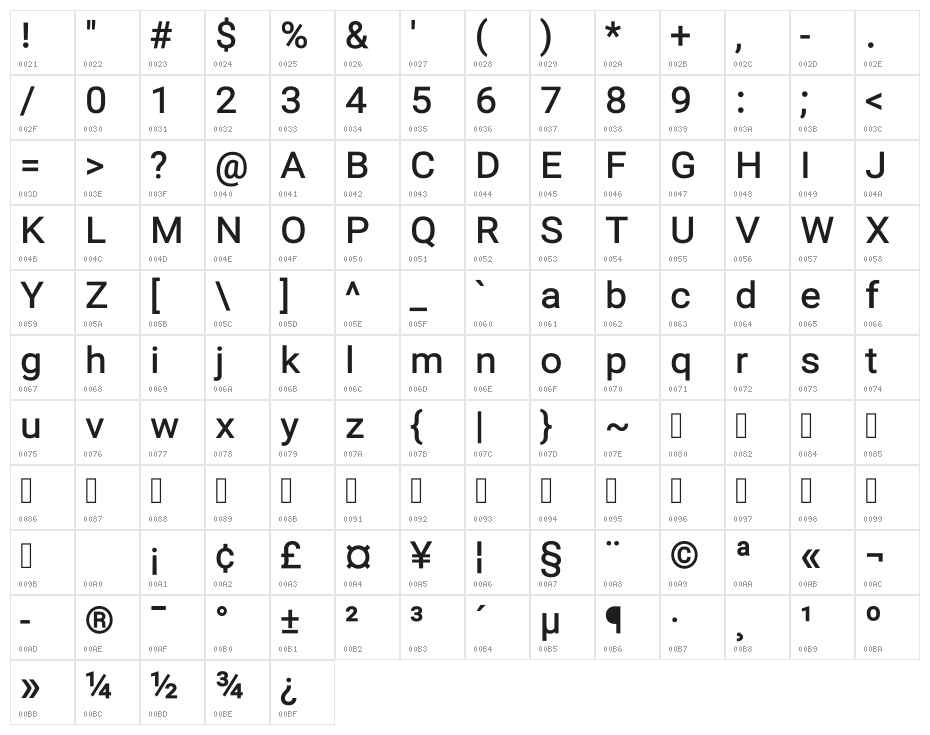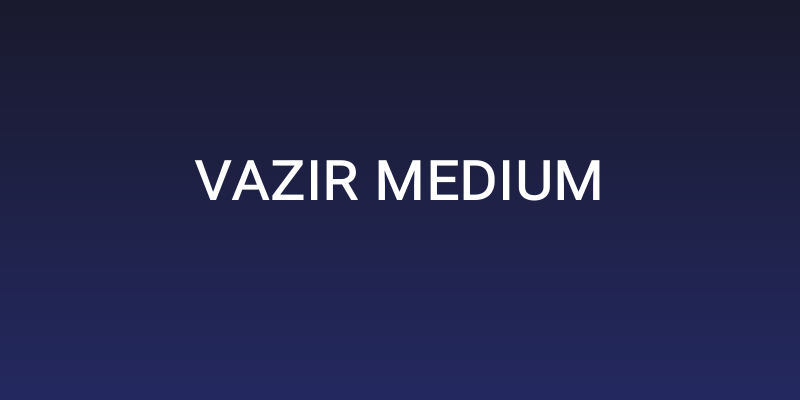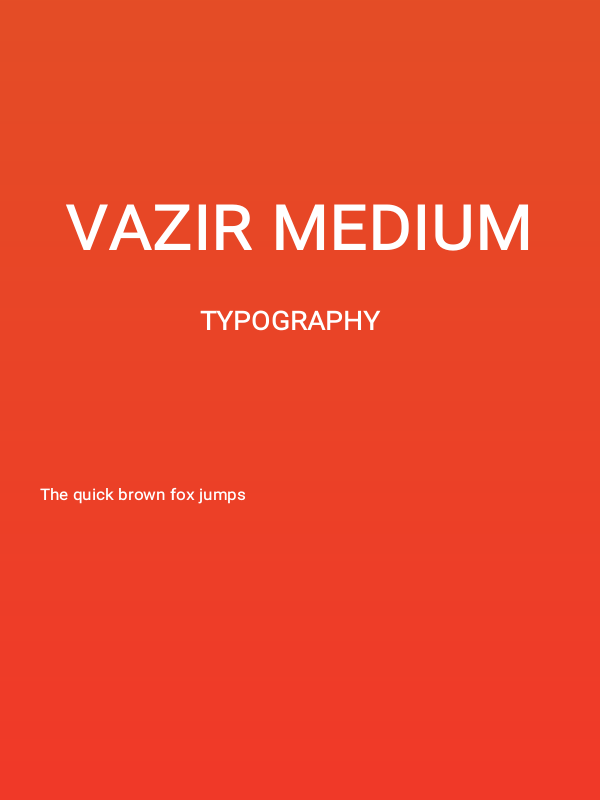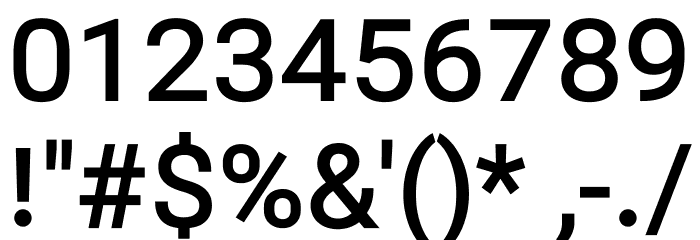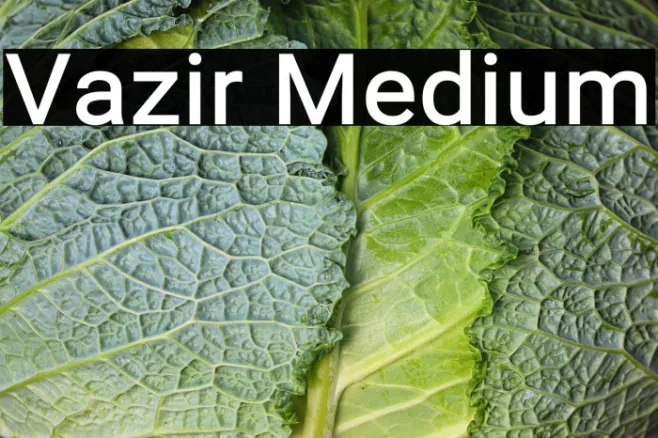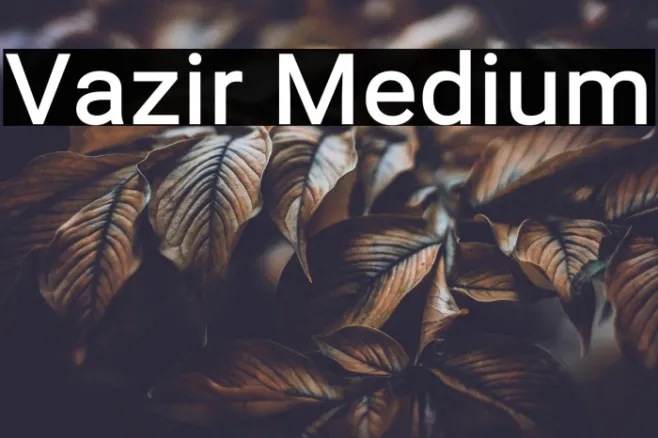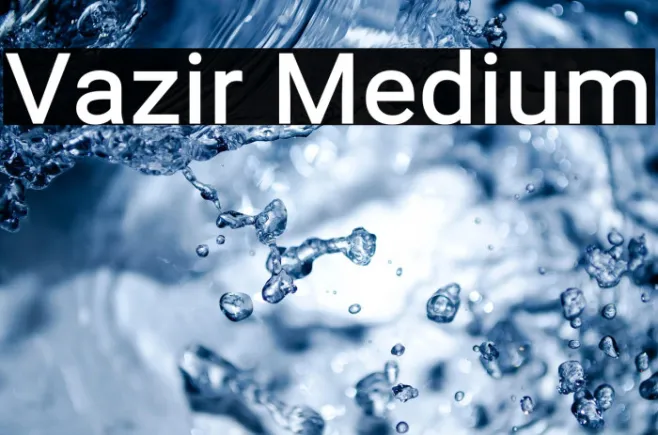
Vazir Medium Font
Vazir Medium Description
This font features a clean and modern sans-serif design, characterized by its straightforward and geometric letterforms. The uppercase and lowercase letters maintain a consistent height and width, providing a balanced and harmonious appearance. The numerals are clear and easily distinguishable, making them suitable for various applications. Special characters are well-integrated, ensuring versatility in design projects. The overall style is minimalistic, making it ideal for contemporary and professional settings.